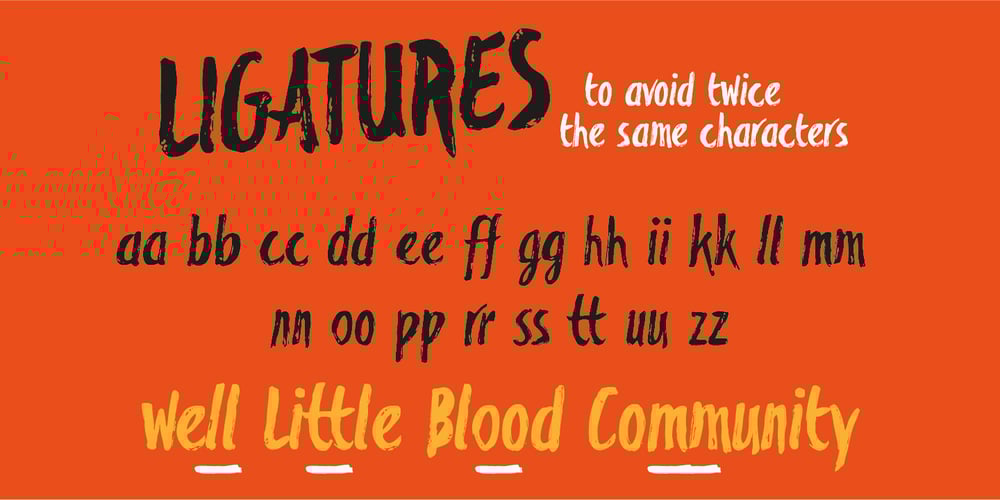
Blackflower
Blackflower font
Blackflower Font Family was designed by Léon Hulst and published by TypeFaith Fonts. Blackflower contains 1 styles and family package options. Blackflower Typeface is a handdrawn brush font. It’s brutal, rough and messy, with ligatures to avoid twice the same glyph. You can use it for labeling, clothing, books, magazines and album covers.